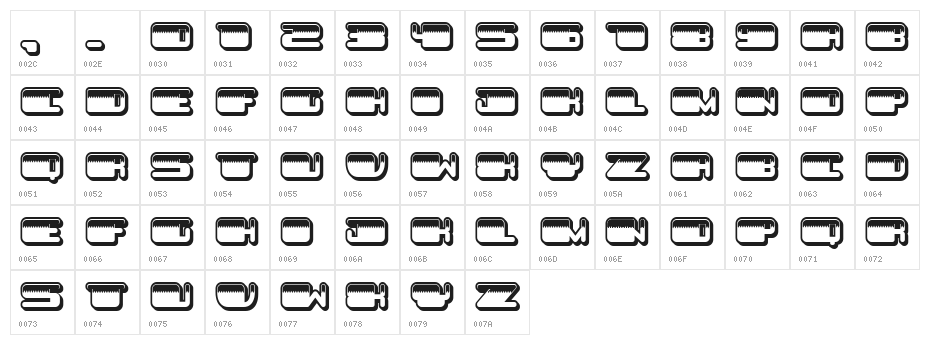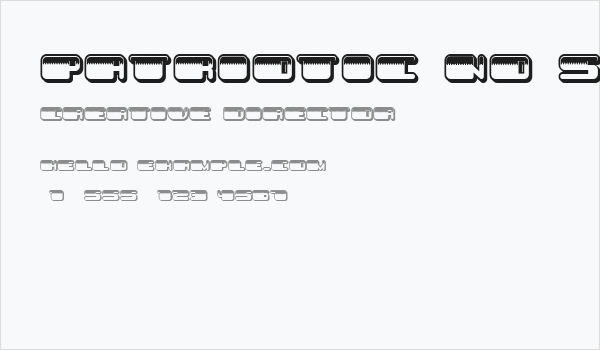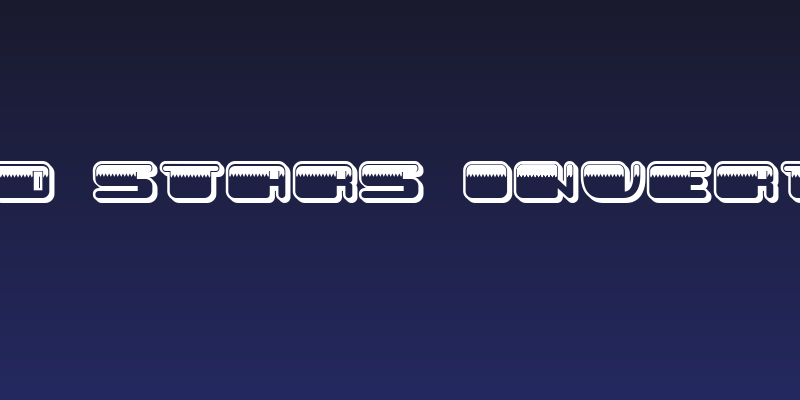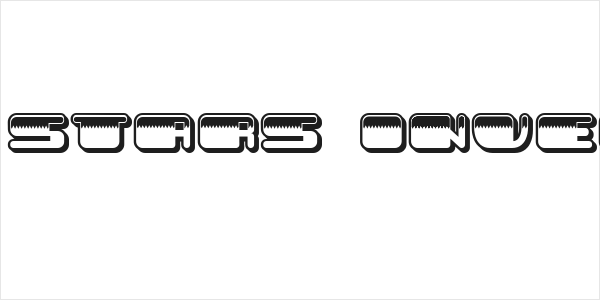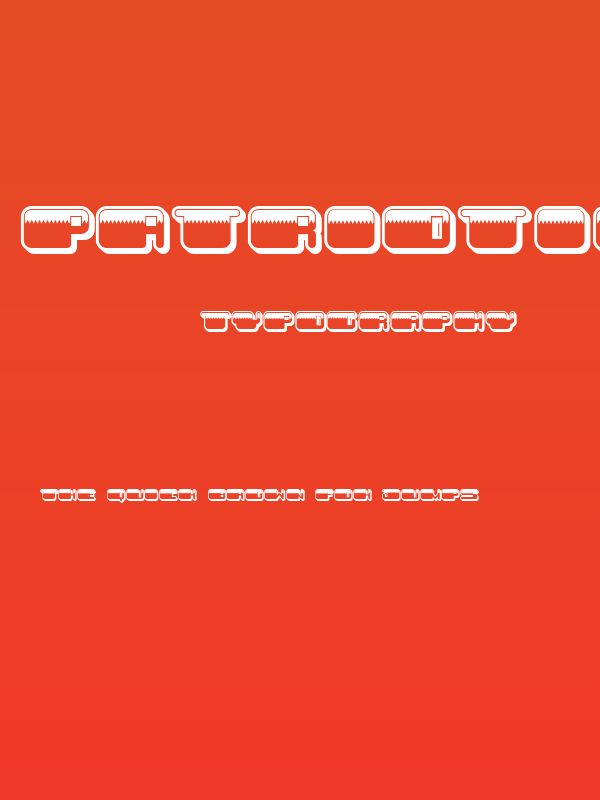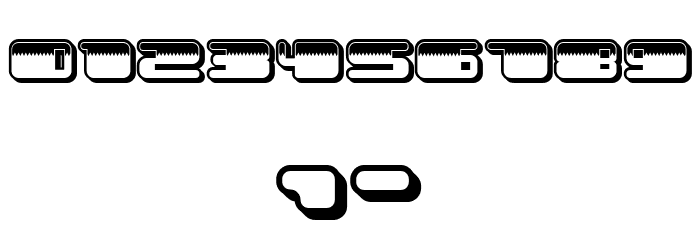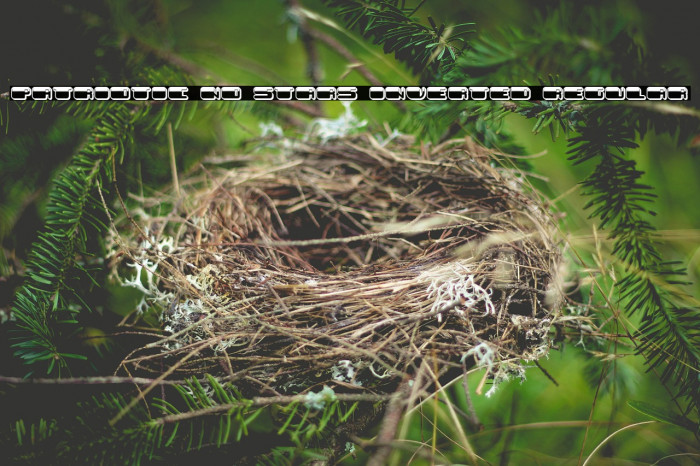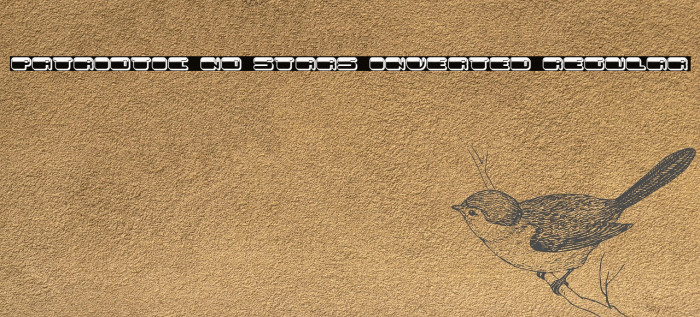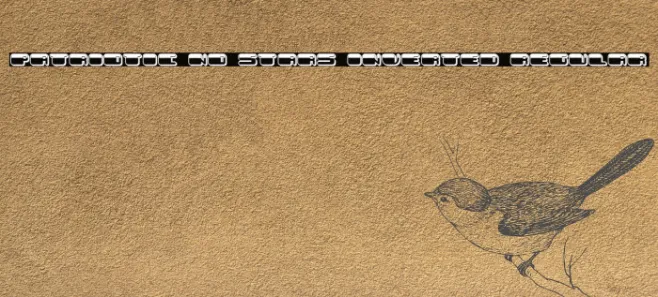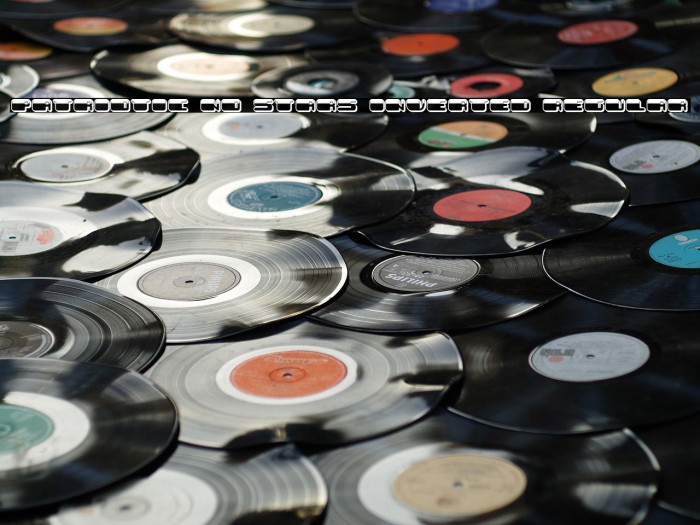
Patriotic No Stars Inverted Regular Font
This font features a bold, modern design with a unique, decorative style. Each character is enclosed within a rounded rectangular shape, giving it a distinct, futuristic appearance. The letters and numbers are outlined with a thick border, adding to the boldness and making them stand out. The interior of each character is filled with a pattern of vertical lines, creating an eye-catching texture. This font is highly stylized, making it ideal for projects that require a strong visual impact. The spacing between characters is uniform, ensuring readability while maintaining its decorative appeal.
| Proposed Projects | Ideal for posters, logos, and branding materials that require a strong visual impact. |